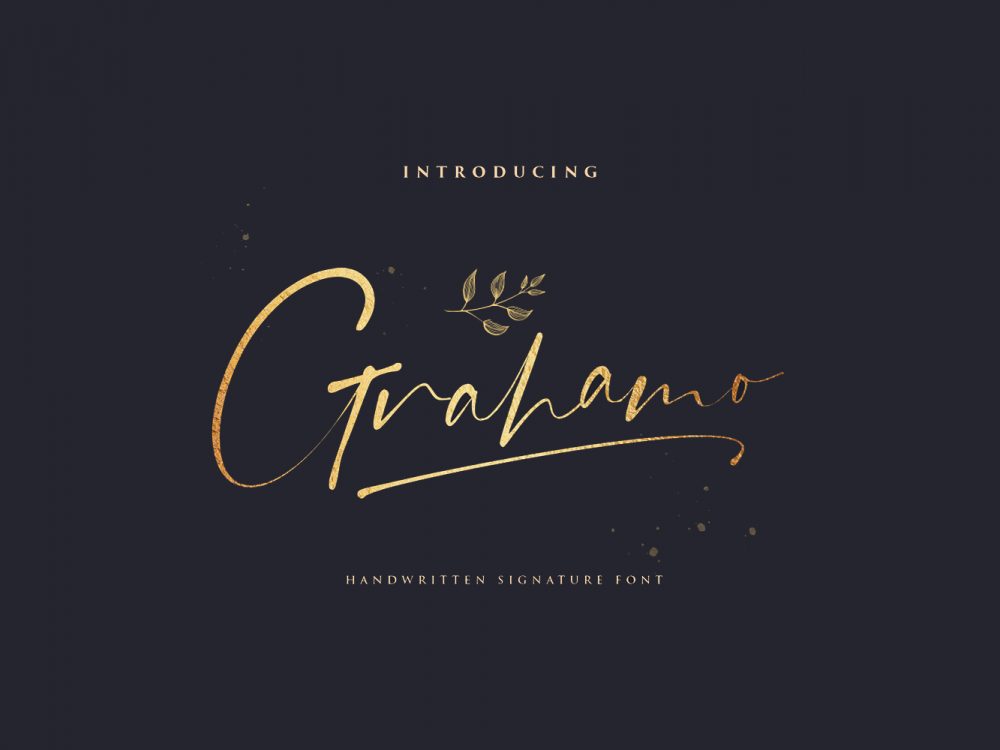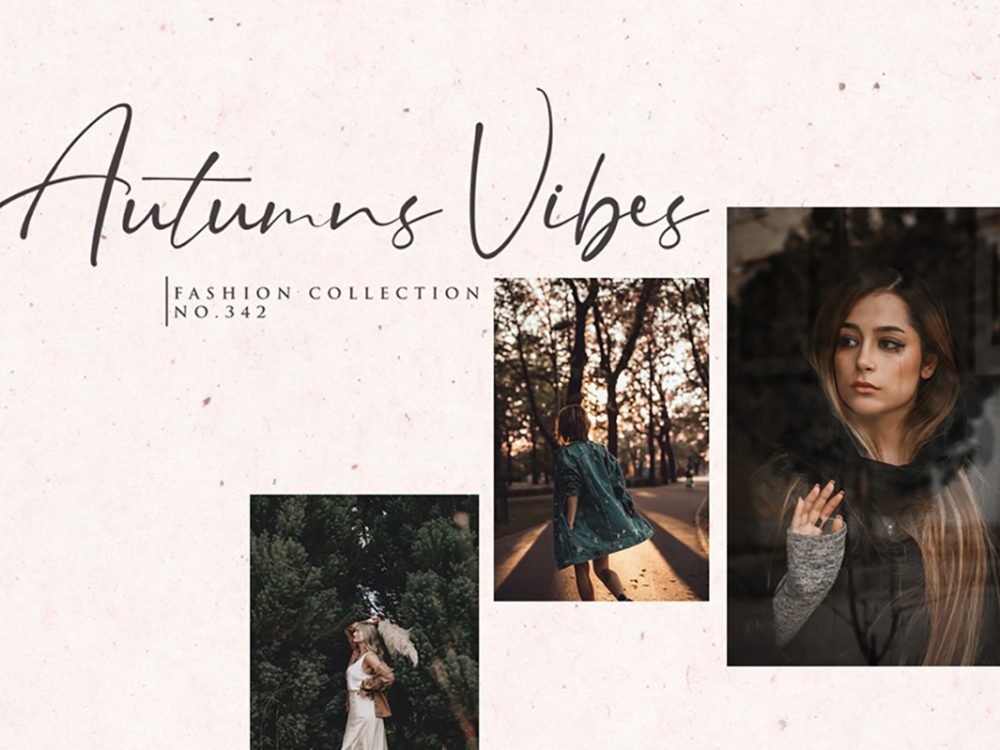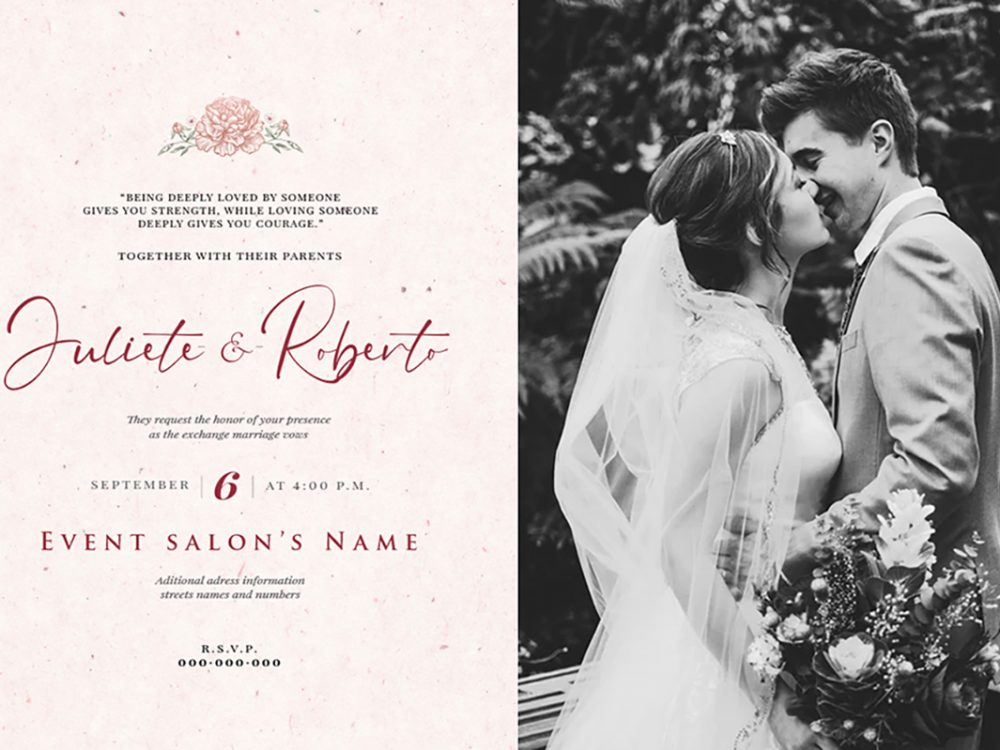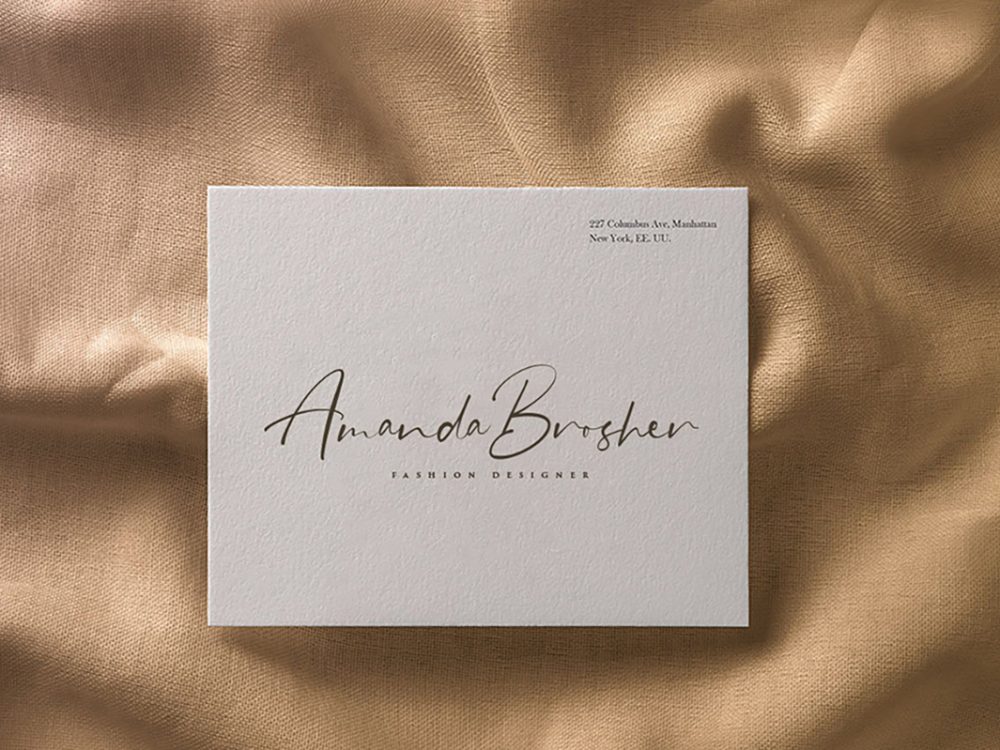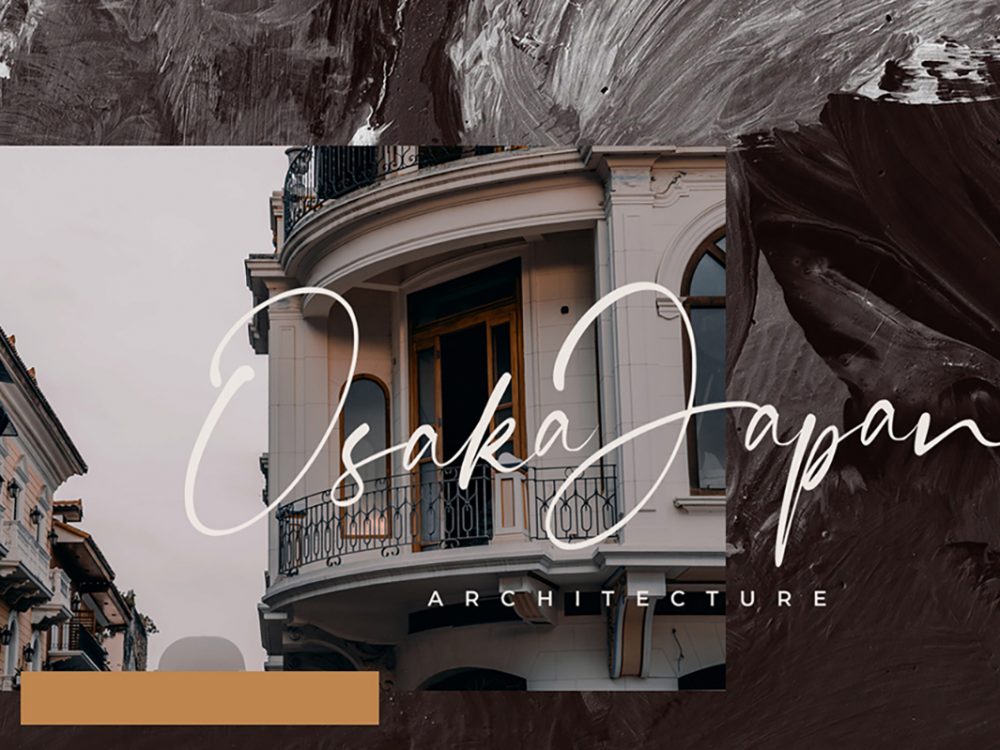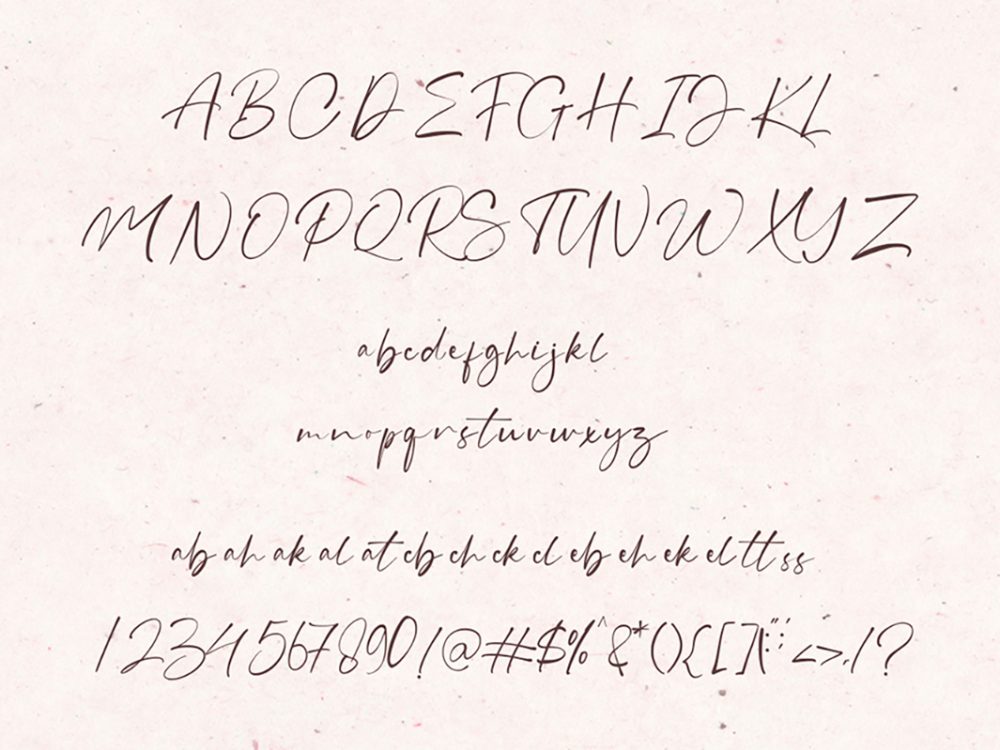
Grahamo Script Font
Grahamo Script Font is an interesting handwritten typeface that mimics writing with a brush and has a modern style. This font is very suitable for creating various design projects that need a catchy script font. You can use this font to create posters, invitations, cards, branding, flyers, prints, and more. If you want more features for this font don’t forget to check the full version.